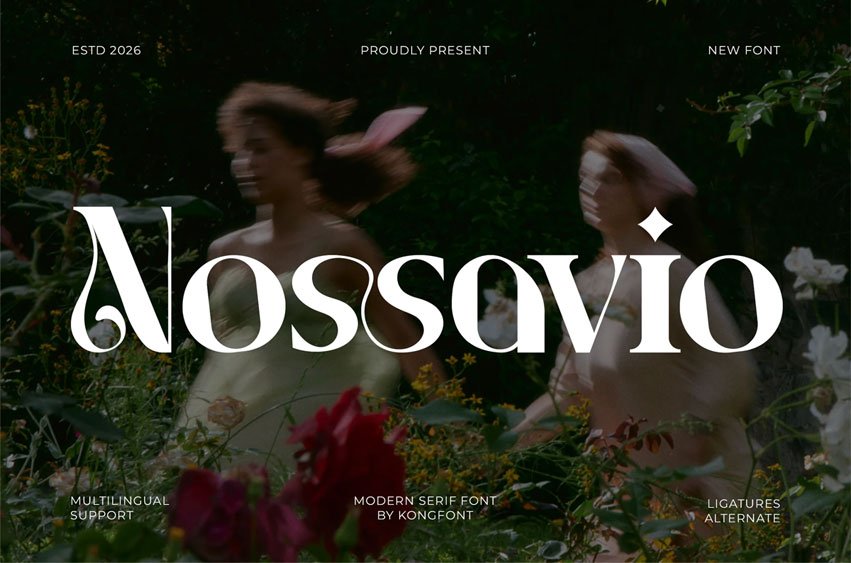
Nossavio Font is a modern serif font designed to deliver elegance, clarity, and contemporary appeal in one refined typeface. With its balanced proportions, smooth curves, and subtle contrast, Nossavio feels classic yet fresh perfect for designs that need to look premium without feeling rigid.
Complete with uppercase and lowercase letters, numerals, punctuation, and multilingual support, Nossavio is a versatile choice for designers who want a modern serif that feels confident, elegant, and professional across both print and digital use.